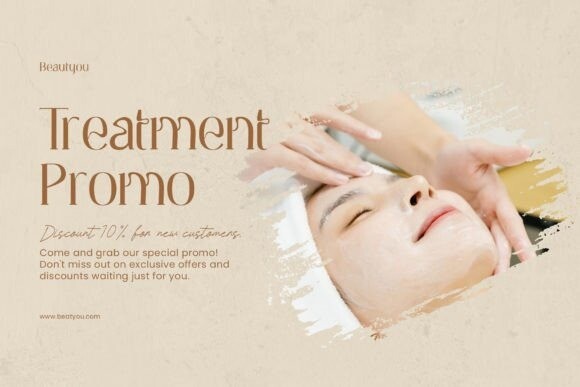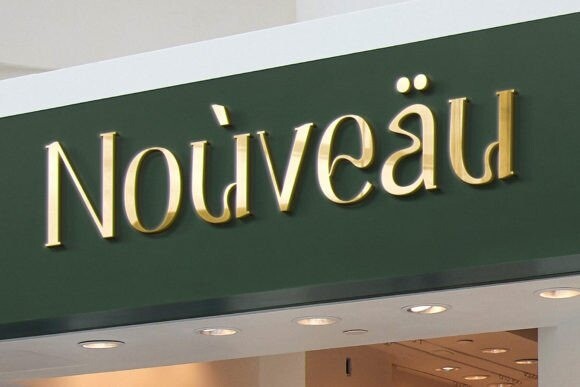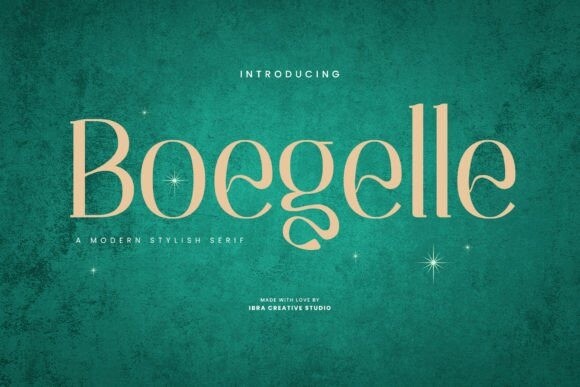
Boegelle Font
Boegelle Font, a modern and stylish serif typeface, epitomizes sophistication with its sleek design and distinctive character. The font seamlessly marries traditional serif elements with contemporary aesthetics, resulting in a typeface that exudes elegance and versatility. Boegelle’s letterforms boast a balanced combination of sharp serifs and smooth curves, creating a visual harmony that is both timeless and contemporary.